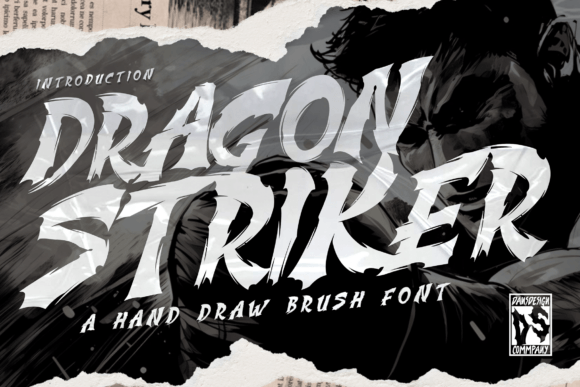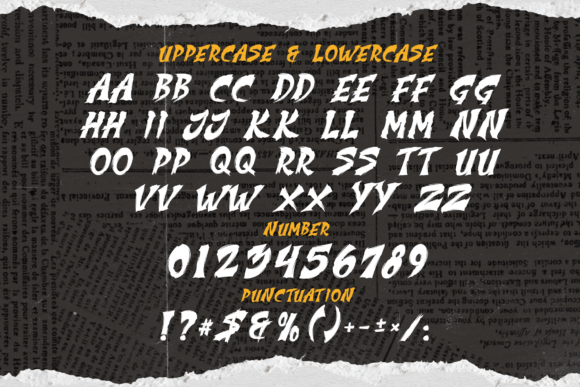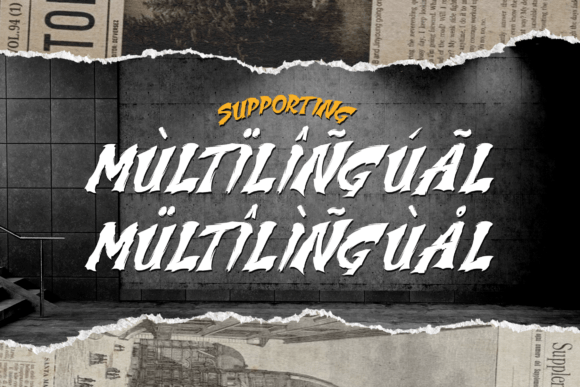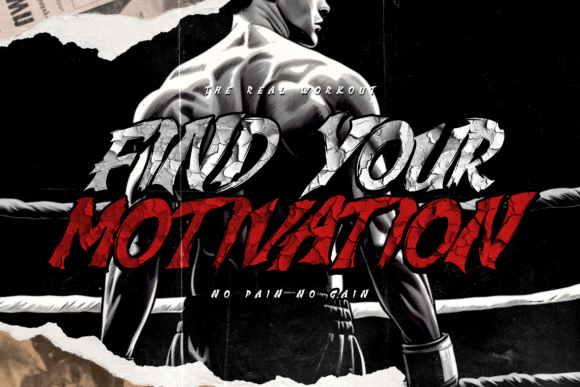
Dragon Striker Font
About the Dragon Striker Font
Experience the unique personality of Dragon Striker Font, a font designed for impact. Dragon Striker is a horror-themed marker with a Y2K-inspired brush design. It features bold, striking details that evoke a sense of fear and mystery, combining a futuristic edge with classic horror elements. Perfect for adding intense, dramatic effects to your artwork.
Dragon Striker excels in headline applications, posters, and branding projects requiring a bold, impactful statement. Its aggressive strokes are ideal for horror-themed material, music album art, or edgy fashion campaigns. Avoid using it for body text or UI elements; its highly stylized nature compromises readability in smaller sizes or extended passages.
This font’s core personality is bold and rebellious, with a touch of futuristic grit. Its Y2K influences lend a modern edge to its horror aesthetic.
Pairing Dragon Striker with a clean sans-serif like Montserrat or a sharp geometric font like Futura provides a strong contrast, balancing its aggressive energy. For a slightly softer counterpoint, consider a neutral serif like Garamond or a more playful script like Pacifico, depending on the desired overall mood.
Dragon Striker Font Usage Examples
Dragon Striker Font Example